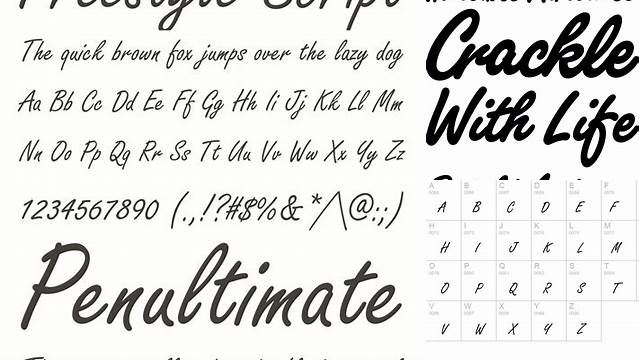
Font Freestyle Script: Design Guide & Usage Tips
Hey guys! Ever wondered about those elegant, flowing fonts that look like they were handwritten? Well, you're probably thinking about freestyle script fonts! These fonts are super popular for adding a touch of personalization, elegance, and charm to your designs. In this comprehensive guide, we'll dive deep into the world of freestyle script fonts, exploring their characteristics, history, diverse styles, and how to use them effectively in various design projects. So, buckle up and get ready to unleash your creativity with the magic of freestyle scripts! Understanding the nuances of font freestyle script is essential for anyone looking to enhance their design projects with a personal and elegant touch. This style, characterized by its flowing and handwritten appearance, adds a unique charm and sophistication to any piece. The beauty of font freestyle script lies in its versatility; it can be used in a wide range of applications, from wedding invitations to branding materials, making it a valuable asset for designers and creatives. Exploring different variations and understanding how to pair them with other fonts can significantly elevate the overall aesthetic of your work. Moreover, the historical context of font freestyle script provides insight into its evolution and enduring appeal, further enriching our appreciation for this artistic typeface. By mastering the use of font freestyle script, you can create designs that not only capture attention but also convey a sense of authenticity and craftsmanship. The careful selection and application of font freestyle script can transform ordinary text into a visual masterpiece, enhancing the emotional connection with your audience and leaving a lasting impression.
Freestyle script is a type of font that mimics the look of handwriting. It's characterized by its flowing strokes, natural curves, and the feeling of spontaneity. Think of it as the digital equivalent of beautiful penmanship. Unlike more structured fonts like Times New Roman or Arial, freestyle scripts have a more organic and fluid appearance. They often feature connecting letters, loops, and swashes that add a touch of elegance and personality. Freestyle scripts are incredibly diverse, ranging from casual and playful to formal and sophisticated. The variations within freestyle script fonts are vast, offering designers a plethora of options to match their specific needs and aesthetics. Some freestyle scripts lean towards a modern, clean look, while others embrace a more traditional, calligraphic style. This diversity ensures that there’s a freestyle script suitable for nearly any project, whether it's a logo, invitation, website header, or social media graphic. The key is to understand the nuances of each freestyle script and how it interacts with the overall design. For example, a bolder freestyle script might be perfect for headlines, while a lighter, more delicate version could be ideal for body text or captions. Furthermore, freestyle scripts can be combined with other font styles to create visually appealing contrasts and hierarchies. Pairing a freestyle script with a simple sans-serif font can create a balanced and modern look, whereas combining it with a serif font can evoke a more classic and refined feel. Ultimately, mastering the art of using freestyle script involves experimentation and a keen eye for detail, allowing you to leverage its unique charm and personality to enhance your creative work. The aesthetic appeal of font freestyle script is deeply rooted in its ability to replicate the natural flow and rhythm of human handwriting. This quality makes it an excellent choice for projects where a personal touch is desired, such as invitations, greeting cards, and personalized stationery. The fluidity and elegance of the letterforms convey a sense of warmth and authenticity, setting it apart from more formal and structured typefaces. Understanding the anatomy of font freestyle script, including the ascenders, descenders, and ligatures, is crucial for effective usage. These elements contribute to the overall character and readability of the font, influencing how it interacts with the surrounding text and design elements. Moreover, the weight and spacing of the letters play a significant role in the visual impact of font freestyle script, requiring careful consideration to ensure optimal legibility and aesthetic harmony. The versatility of font freestyle script extends beyond print media; it is also widely used in digital design, adding a touch of sophistication to websites, logos, and social media graphics. When selecting a font freestyle script, it's important to consider the specific context and target audience. A formal and ornate script may be suitable for a wedding invitation, while a more casual and playful version might be better suited for a children's book or a blog post. By carefully matching the style of the font freestyle script to the overall theme and message of the project, designers can create a cohesive and impactful visual experience. The timeless appeal of font freestyle script lies in its ability to bridge the gap between traditional craftsmanship and modern design, making it a favorite among designers seeking to infuse their work with a touch of personality and elegance.
The history of freestyle script fonts is closely tied to the evolution of handwriting and calligraphy. Before the advent of digital fonts, all writing was done by hand, and various styles of handwriting emerged over centuries. Freestyle scripts draw inspiration from these historical writing styles, particularly those that emphasized fluidity and expressiveness. Think of the elegant scripts used in formal documents and letters from the 18th and 19th centuries – many freestyle scripts echo these classic forms. The development of printing technology and typography played a significant role in shaping freestyle scripts as we know them today. As type designers sought to replicate the beauty and spontaneity of handwriting in metal type, they began to create fonts that captured the essence of different calligraphic styles. This evolution continued with the advent of digital fonts, which allowed for even greater flexibility and creativity in the design of freestyle scripts. Today, there's a vast array of freestyle script fonts available, each with its unique characteristics and influences. The evolution of font freestyle script is deeply rooted in the history of writing itself, tracing back to the earliest forms of calligraphy and penmanship. Throughout the centuries, different cultures and eras have developed their unique styles of handwriting, each with its distinctive characteristics and aesthetic appeal. Font freestyle script draws inspiration from these diverse traditions, adapting and modernizing them for contemporary use. The advent of printing technology marked a significant milestone in the development of font freestyle script. As printers sought to replicate the elegance and fluidity of handwriting in metal type, they began to experiment with different letterforms and arrangements, laying the groundwork for the emergence of font freestyle script as a distinct typeface category. The transition from manual typesetting to digital font design further expanded the possibilities for font freestyle script, allowing for greater precision, versatility, and creative expression. Today, font freestyle script encompasses a wide range of styles, from classic and formal to modern and whimsical, reflecting the rich and varied history of handwriting. Understanding the historical context of font freestyle script not only enriches our appreciation for its aesthetic qualities but also provides valuable insights into its appropriate usage. For example, a font freestyle script inspired by 18th-century calligraphy might be ideal for wedding invitations or formal announcements, while a more contemporary and informal font freestyle script could be perfect for branding materials or social media graphics. By considering the historical and cultural associations of different font freestyle script styles, designers can create designs that are not only visually appealing but also historically resonant. The enduring appeal of font freestyle script lies in its ability to evoke a sense of tradition and craftsmanship, while also offering the flexibility and adaptability needed for modern design applications. The development of font freestyle script has been significantly influenced by advancements in printing and digital technologies. Early printing techniques, which relied on metal type, presented limitations in replicating the fluid and connected strokes of handwriting. However, as printing methods evolved, so did the ability to create more intricate and lifelike script fonts. The introduction of lithography and engraving allowed for finer details and greater artistic expression, paving the way for the emergence of more sophisticated font freestyle script designs. The digital age revolutionized font freestyle script design, providing designers with unprecedented tools and capabilities. Software programs enabled the creation of intricate letterforms with precise curves and connections, resulting in a vast array of font freestyle script styles. The ability to easily customize and manipulate fonts digitally has further fueled the creativity and innovation in font freestyle script design, leading to a diverse range of options for designers to choose from. Moreover, the accessibility of digital fonts has made font freestyle script more widely used and appreciated, solidifying its place as a staple in modern design. The ongoing evolution of technology continues to shape the future of font freestyle script, with new techniques and software emerging to push the boundaries of what is possible. From variable fonts that offer dynamic adjustments to AI-powered design tools, the possibilities for font freestyle script are constantly expanding, ensuring its continued relevance and appeal in the world of typography.
One of the coolest things about freestyle script fonts is their variety. You're not limited to just one style! There are countless variations, each with its own unique personality. Some common styles include:
- Calligraphic Scripts: These fonts mimic traditional calligraphy with elegant strokes and flourishes. They're perfect for formal invitations, wedding stationery, and high-end branding.
- Brush Scripts: Brush scripts have a more casual and hand-painted feel, as if they were created with a brush pen. They're great for adding a personal touch to logos, posters, and social media graphics.
- Signature Scripts: As the name suggests, these fonts resemble handwritten signatures. They're often used for watermarks, logos, and adding a personal touch to documents.
- Modern Scripts: Modern scripts are cleaner and more streamlined than traditional scripts, often featuring simplified letterforms and a contemporary aesthetic. They're versatile and can be used in a wide range of design projects.
- Whimsical Scripts: These fonts are playful and fun, with quirky letterforms and a lighthearted feel. They're ideal for children's books, greeting cards, and designs that need a touch of personality.
The diversity in font freestyle script styles is truly remarkable, offering a wide array of options to suit various design needs and preferences. Each style carries its unique characteristics and evokes different emotions, making the selection process a crucial aspect of design. Calligraphic scripts, for instance, draw inspiration from traditional penmanship, featuring elegant strokes and intricate flourishes that exude sophistication and formality. These styles are often favored for wedding invitations, certificates, and other formal documents where a touch of class is desired. Brush scripts, on the other hand, mimic the look of hand-painted lettering, adding a personal and artistic flair to designs. Their textured strokes and natural variations create a more casual and approachable feel, making them ideal for branding, advertising, and social media graphics. Signature scripts, as the name suggests, resemble handwritten signatures, adding a personal and authentic touch to any design. These styles are commonly used for logos, watermarks, and personalized stationery, conveying a sense of individuality and craftsmanship. Modern scripts represent a contemporary take on font freestyle script, characterized by clean lines, simplified letterforms, and a minimalist aesthetic. These styles are versatile and can be used in a wide range of applications, from web design to print media, offering a fresh and updated feel. Whimsical scripts bring a playful and lighthearted vibe to designs, featuring quirky letterforms, decorative elements, and a sense of fun. These styles are perfect for children's books, greeting cards, and other projects that aim to evoke joy and creativity. The vast selection of font freestyle script styles ensures that there's a perfect match for any project, allowing designers to effectively communicate their message and create visually compelling designs. Understanding the nuances of each style and how they interact with the overall design is key to mastering the art of using font freestyle script. From elegant and formal to casual and playful, the different styles of font freestyle script offer a spectrum of aesthetic possibilities. Calligraphic styles, with their graceful curves and elaborate details, are reminiscent of traditional handwriting, making them suitable for projects that require a touch of refinement and elegance. These styles often incorporate varying stroke weights and intricate letter connections, enhancing their visual appeal and readability. Brush script styles, inspired by brush lettering techniques, feature textured strokes and organic forms that convey a sense of spontaneity and creativity. These styles are popular for branding, advertising, and packaging designs, adding a handcrafted touch to the overall aesthetic. Signature styles mimic the look of personal signatures, making them ideal for adding a personal touch to documents, logos, and watermarks. Their fluid and natural letterforms convey authenticity and individuality, enhancing the credibility and memorability of the design. Modern script styles offer a contemporary twist on traditional font freestyle script, with simplified letterforms and clean lines. These styles are versatile and suitable for a wide range of applications, including web design, editorial layouts, and branding materials. Whimsical script styles, characterized by their playful and quirky letterforms, are perfect for projects that aim to evoke a sense of fun and creativity. These styles often incorporate decorative elements and unique character shapes, adding a touch of personality and charm to the design. The choice of font freestyle script style should align with the overall tone and message of the project, ensuring a cohesive and impactful visual communication. Whether it's a formal invitation, a marketing campaign, or a children's book, the right font freestyle script can significantly enhance the aesthetic appeal and effectiveness of the design.
Using freestyle script fonts effectively requires a bit of finesse and understanding. While they're beautiful, they can also be tricky to work with if you're not careful. Here are some tips to keep in mind:
- Readability is Key: Freestyle scripts can sometimes be difficult to read, especially in large blocks of text. Use them sparingly, primarily for headlines, logos, or short phrases. For body text, stick to more legible fonts.
- Pair Wisely: Freestyle scripts often look best when paired with simpler fonts, such as sans-serif or serif fonts. This creates a nice contrast and ensures readability.
- Consider the Context: Think about the overall tone and style of your design. A formal script might be perfect for a wedding invitation, but not for a children's book. Choose a script that fits the mood.
- Use Hierarchy: Use different font sizes and weights to create visual hierarchy and guide the reader's eye. A bold script headline paired with a smaller, simpler body text can be very effective.
- Kerning and Leading: Pay attention to kerning (the space between letters) and leading (the space between lines). Adjusting these can significantly improve readability and visual appeal.
The effective use of font freestyle script hinges on understanding its inherent strengths and limitations, and applying it judiciously within a design project. While font freestyle script adds a touch of elegance and personality, its primary role should never compromise readability. Overusing font freestyle script, especially in large blocks of text, can make the content difficult to decipher, diminishing the overall impact. Instead, reserve font freestyle script for headlines, subheadings, logos, and other prominent elements where its aesthetic qualities can shine without sacrificing clarity. Pairing font freestyle script with other fonts is a crucial aspect of effective typography. A well-chosen pairing can create a harmonious balance, enhancing both the visual appeal and readability of the design. Generally, font freestyle script works best when combined with simpler fonts, such as sans-serif or serif typefaces. These fonts provide a clean and neutral backdrop, allowing the font freestyle script to stand out while ensuring that the overall text remains legible. The contrast between the ornate font freestyle script and the straightforward font creates visual interest and helps to guide the reader's eye through the content. Considering the context and purpose of the design is essential when selecting and using font freestyle script. The style of font freestyle script should align with the overall tone and message of the project. For formal occasions, such as weddings or corporate events, an elegant and refined font freestyle script may be appropriate. However, for more casual or playful designs, a whimsical or brush-style font freestyle script might be a better fit. Matching the font freestyle script to the context ensures that the design effectively communicates its intended message and resonates with the target audience. Creating a clear visual hierarchy is another key element in using font freestyle script effectively. By varying the font sizes, weights, and styles, designers can guide the reader's eye through the content and emphasize important information. A bold font freestyle script headline, for instance, can draw attention and create a focal point, while smaller, simpler body text ensures readability. Strategic use of font freestyle script within the hierarchy can enhance the overall visual impact and clarity of the design. Fine-tuning kerning and leading is essential for optimizing the readability and visual appeal of font freestyle script. Kerning, the adjustment of space between individual letters, can improve the balance and flow of the text. Leading, the vertical space between lines of text, can enhance readability by preventing lines from feeling cramped. Paying attention to these details can make a significant difference in the overall aesthetic quality of font freestyle script, ensuring that it looks polished and professional. The strategic application of font freestyle script requires a keen eye for design and a thorough understanding of typographic principles. Overusing decorative fonts can lead to visual clutter and detract from the message, while thoughtful integration can elevate the design and create a lasting impression. Font freestyle script is particularly effective for creating logos and branding materials that convey a sense of personality and authenticity. Its unique and handcrafted appearance can help a brand stand out from the competition and establish a strong visual identity. However, it's crucial to ensure that the chosen font freestyle script aligns with the brand's overall image and values. For example, a luxury brand might opt for an elegant and refined font freestyle script, while a creative agency might prefer a more playful and whimsical style. In addition to logos, font freestyle script can be used effectively in marketing materials, such as brochures, flyers, and social media graphics. Its eye-catching appearance can help to grab attention and create a memorable visual experience. However, it's important to use font freestyle script sparingly and in conjunction with other design elements to avoid overwhelming the viewer. The key is to strike a balance between aesthetic appeal and functional communication. In web design, font freestyle script can add a touch of personality and sophistication to headers, banners, and other visual elements. However, it's essential to prioritize readability, especially on smaller screens. Using font freestyle script for large blocks of text can hinder the user experience and make the website difficult to navigate. Instead, consider using font freestyle script for headings and other key elements, while opting for a more legible font for body text. The versatility of font freestyle script makes it a valuable tool for a wide range of design applications, but its effective use requires careful consideration and attention to detail. By understanding its strengths and limitations, and applying it strategically within a design project, you can create visuals that are both aesthetically pleasing and functionally effective.
So, there you have it! A deep dive into the world of freestyle script fonts. These fonts can add a touch of magic to your designs, but it's important to use them wisely. Remember to prioritize readability, pair them with simpler fonts, and consider the context of your project. With a little practice and experimentation, you'll be creating stunning designs with freestyle scripts in no time! Now go out there and get creative, guys! Mastering the art of using font freestyle script is a valuable skill for any designer, offering the ability to infuse projects with personality, elegance, and a touch of handcrafted charm. By understanding the history, styles, and best practices of font freestyle script, you can effectively leverage its unique qualities to create visually compelling and emotionally resonant designs. From logos and branding materials to invitations and social media graphics, font freestyle script can elevate the aesthetic appeal and impact of your work, setting it apart from the crowd. The ongoing evolution of font freestyle script design ensures that new and exciting options will continue to emerge, offering designers a rich palette of typographic tools to express their creativity and captivate their audience.